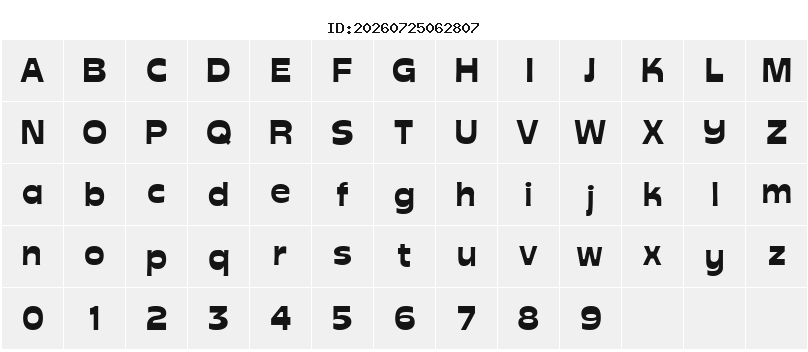
• Font Name: Global
• Full Font Name: Global Regular
About Global.ttf
Global.ttf is a modern, elegant sans-serif font designed for ultimate readability and visual harmony. Perfect for branding, headlines, web design, and print materials.